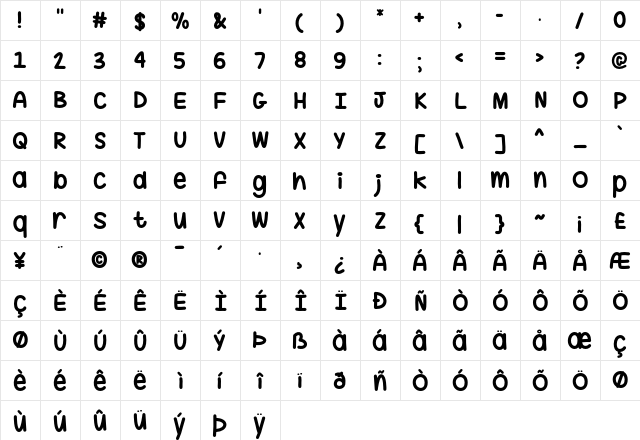
Hug Me Tight Regular
Design Context for Hug Me Tight Typeface
Hug Me Tight is a composed and adaptable typeface that performs quietly and consistently across a wide range of design contexts.